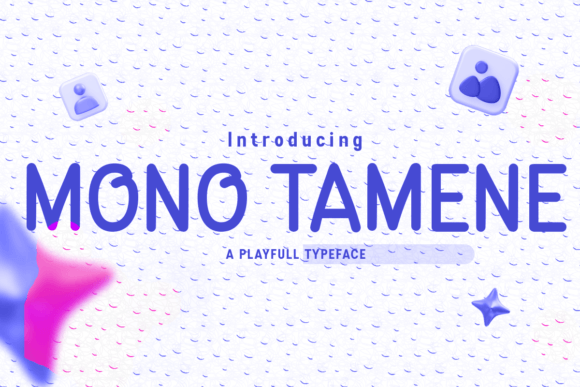
Mono Tamene: A Friendly Display Font
Mono Tamene is a unique and friendly display font that brings a playful and approachable vibe to any project. Its clean, rounded shapes and subtle irregularities make it stand out while maintaining readability. Whether you're designing for a personal project or a professional presentation, Mono Tamene adds a touch of charm that's hard to ignore.
Designed with versatility in mind, this font works well across a range of applications. From digital illustrations and social media graphics to print materials and website headers, Mono Tamene adapts easily to different formats. Its PUA encoding ensures that users can access all the glyphs and ligatures without hassle, making it a reliable choice for both casual and advanced users.
Why Different Audiences May Care About Mono Tamene
The appeal of Mono Tamene varies depending on who is using it and what they're trying to achieve. For beginners, its simple design and ease of use make it an excellent starting point for learning about typography. For professionals, the font’s flexibility and visual personality offer a fresh alternative to more rigid typefaces.
Entrepreneurs and small business owners may find value in its ability to convey a sense of warmth and creativity, which can be especially useful for branding or marketing materials. Educators might appreciate how it can make lesson plans or classroom resources more engaging, while hobbyists could enjoy experimenting with it in DIY projects or personal art.
How Beginners Might Use Mono Tamene
If you're just starting out with design, Mono Tamene offers a low barrier to entry. Its straightforward shape makes it easy to recognize and use, even if you're not familiar with advanced typographic concepts. You can apply it to greeting cards, posters, or social media posts to give your work a more personalized and inviting look.
Beginners may also benefit from the font’s PUA encoding, which allows access to special characters and ligatures without needing complex software. This means you can experiment with different styles and effects more freely, helping you develop your design skills over time.
What Professionals Might Value in Mono Tamene
For designers, developers, and other professionals, Mono Tamene provides a balance between aesthetics and functionality. Its friendly appearance doesn’t compromise on clarity, making it suitable for both creative and technical contexts. It can be used in UI/UX design, web development, or even as a heading font in reports and presentations.
Professionals who work with multiple languages or scripts may appreciate the font’s support for extended character sets. This makes it a practical choice for international projects or multilingual content, where consistency and readability are key.
How Educators Can Benefit From Using Mono Tamene
Educators looking to make learning materials more visually appealing can use Mono Tamene to create engaging worksheets, flashcards, or digital lessons. Its playful style can help capture students’ attention and make information more digestible, especially for younger learners or those who struggle with traditional text formats.
Teachers might also use it in classroom signage, bulletin boards, or interactive activities to add a fun and creative element to their teaching environment. The font’s versatility allows it to fit into various educational settings, from primary schools to adult learning programs.
Business Owners and Branding Opportunities
Small business owners and marketers can leverage Mono Tamene to create a distinctive brand identity. Its friendly and approachable look can help businesses appear more personable and trustworthy, which is especially important in industries like food, retail, or education.
When used in logos, packaging, or promotional materials, Mono Tamene can differentiate a brand from competitors while maintaining a cohesive visual style. It’s also a great option for startups or new ventures looking to establish a strong and memorable presence in the market.
Consumers and Personal Projects
For consumers and hobbyists, Mono Tamene offers a way to personalize their creations without requiring advanced design skills. Whether you’re making custom t-shirts, crafting a handmade book, or creating digital art, this font can add a unique and charming touch to your work.
Its accessibility through PUA encoding means that users can explore different stylistic options without needing specialized tools. This makes it a great choice for anyone who wants to experiment with typography in a fun and creative way.
Considering Your Needs and Goals
Before deciding whether Mono Tamene is right for you, consider your specific goals and how the font aligns with them. If you're looking for something that’s easy to use and visually appealing, this font could be a perfect fit. However, if you need a highly formal or technical typeface, you may want to explore other options.